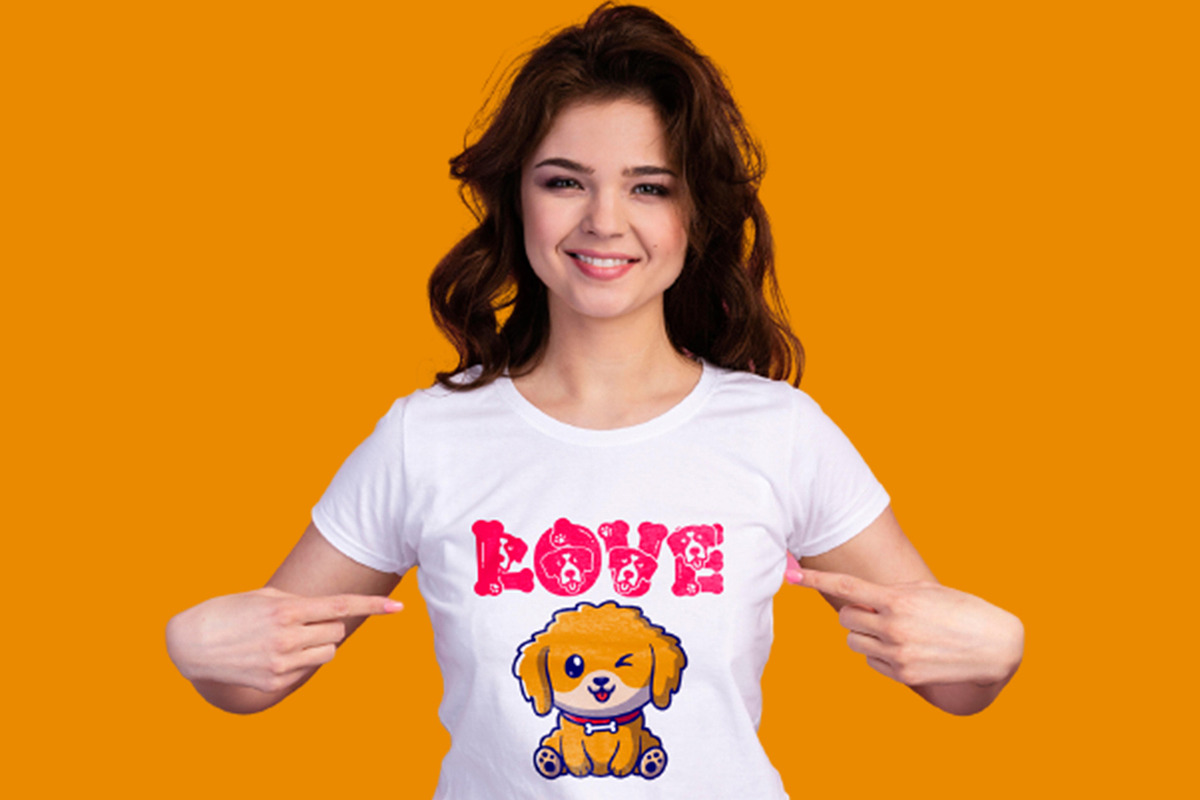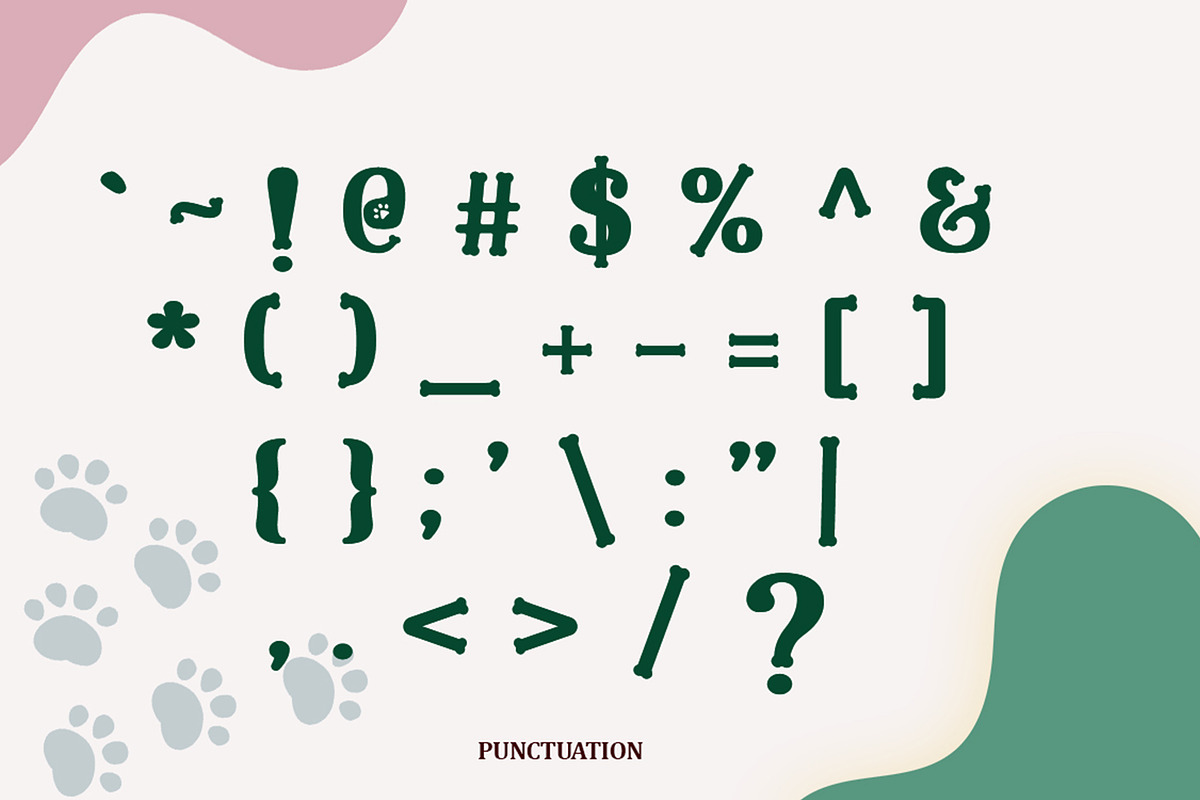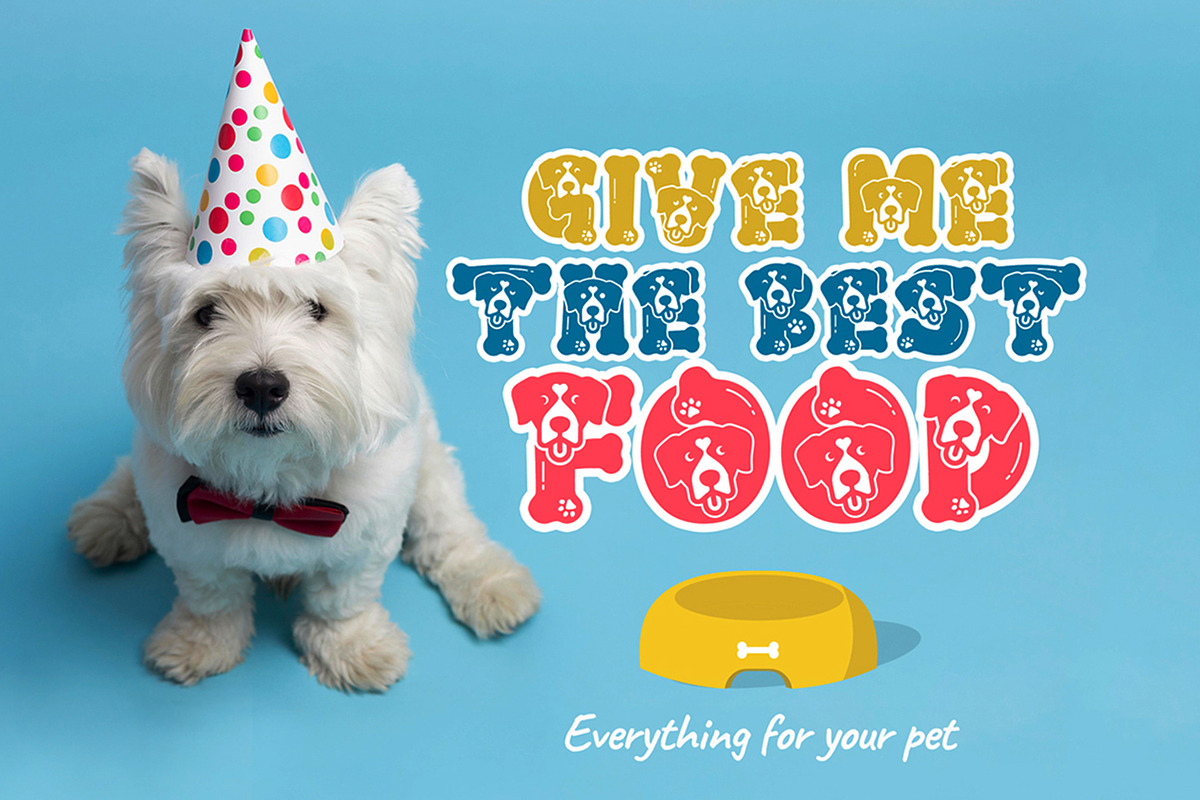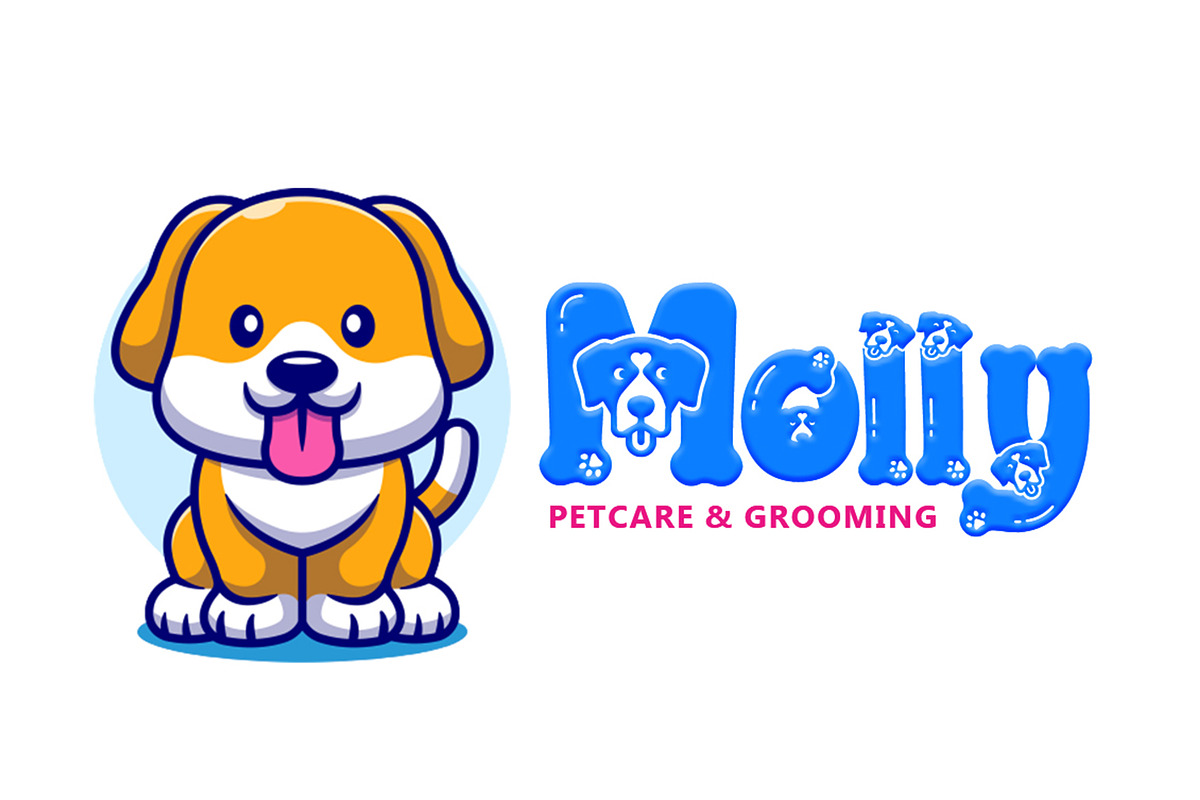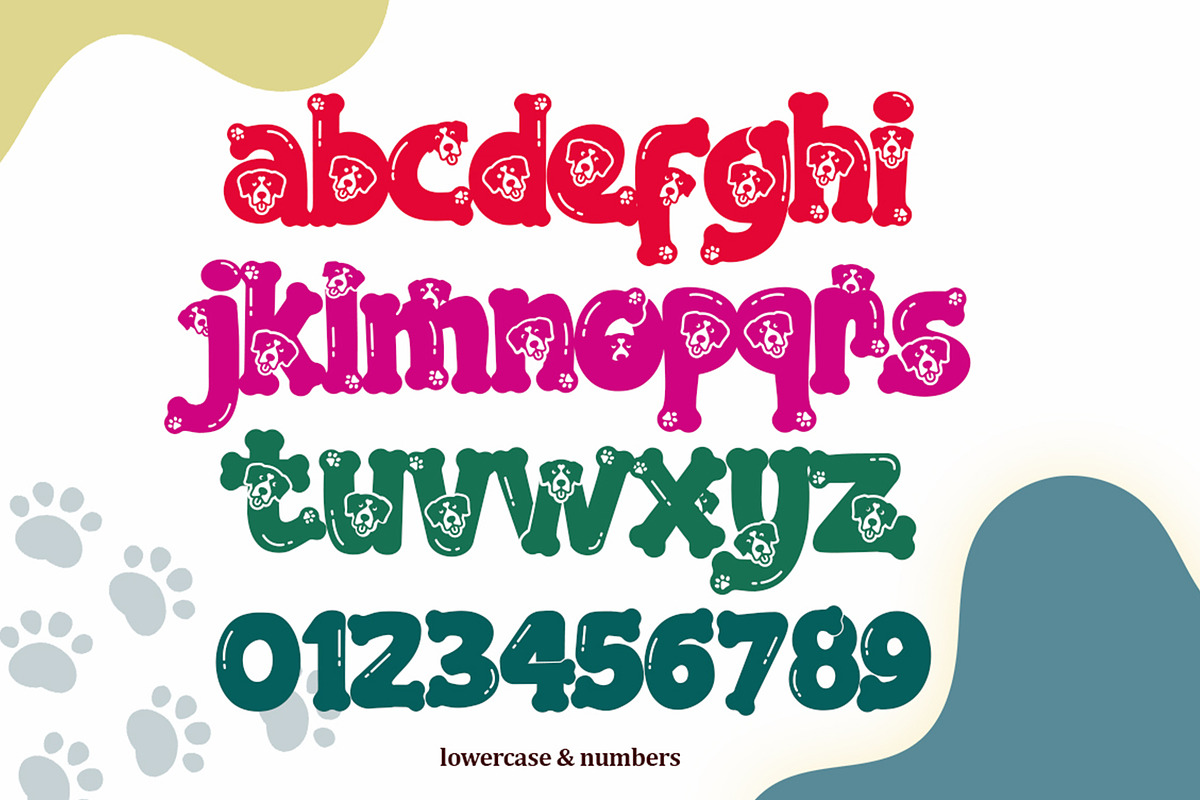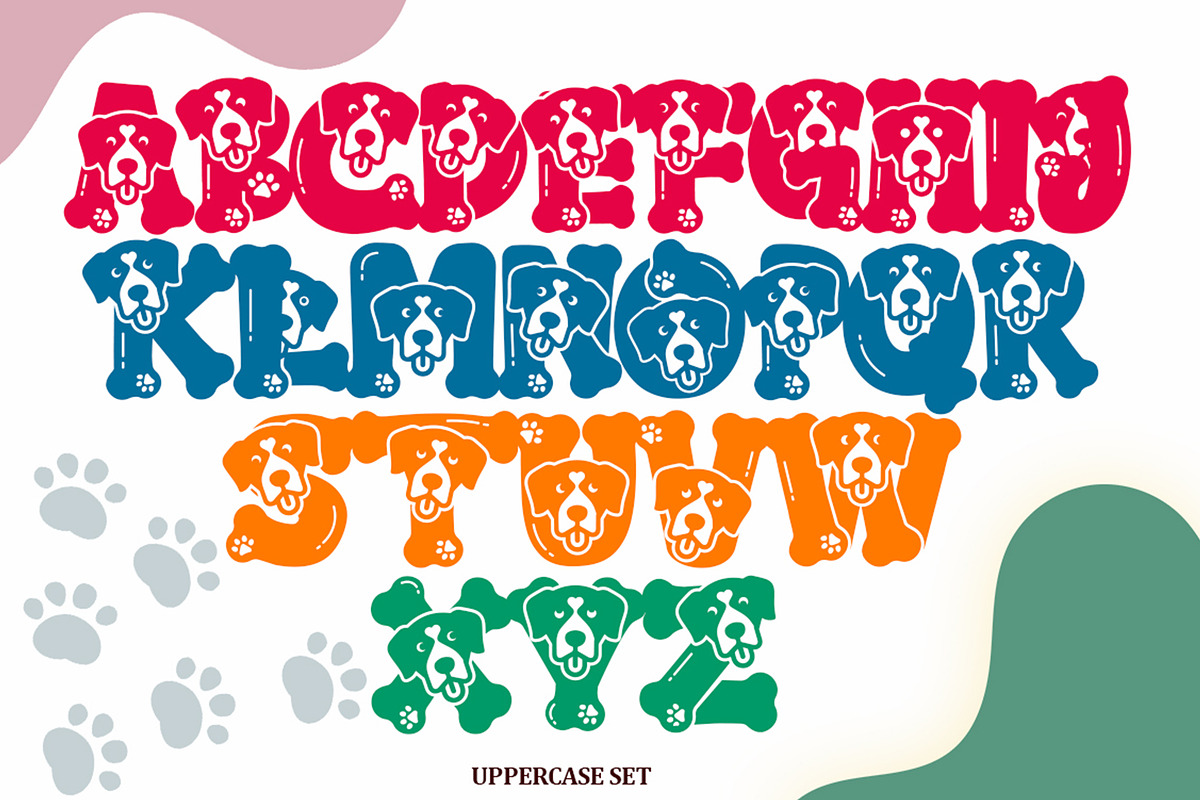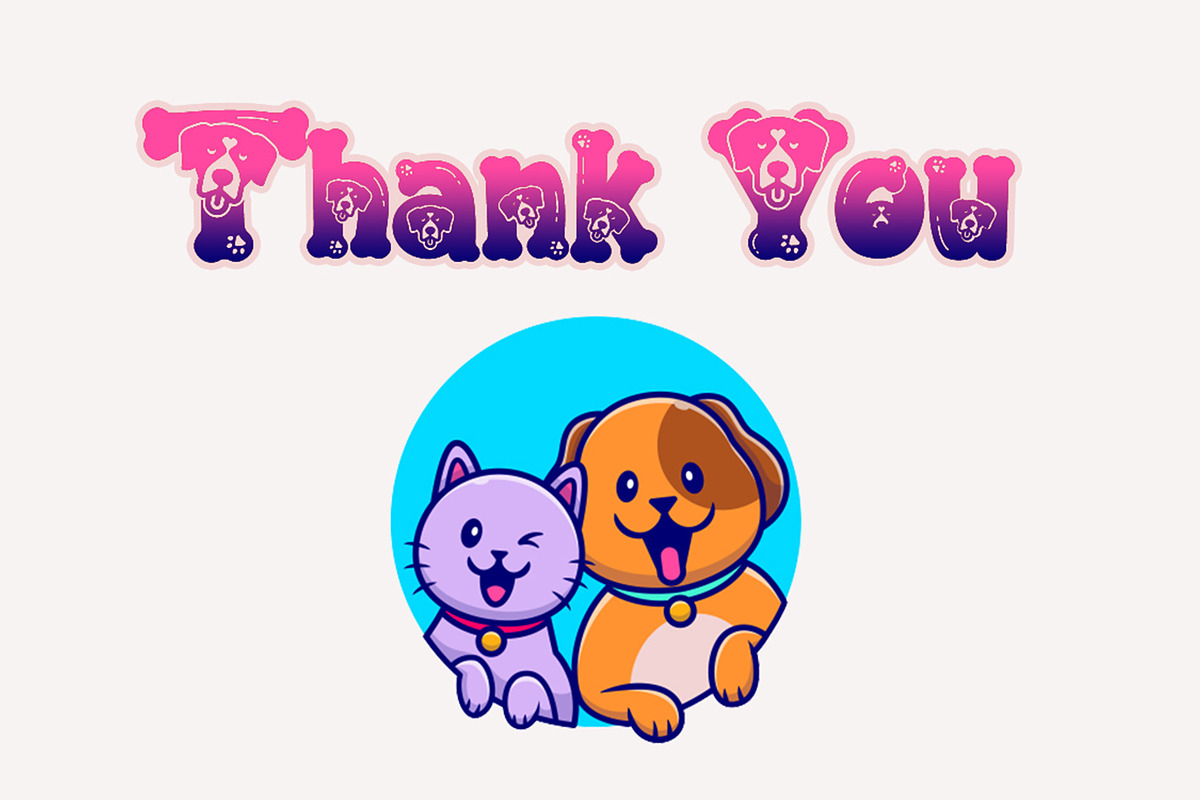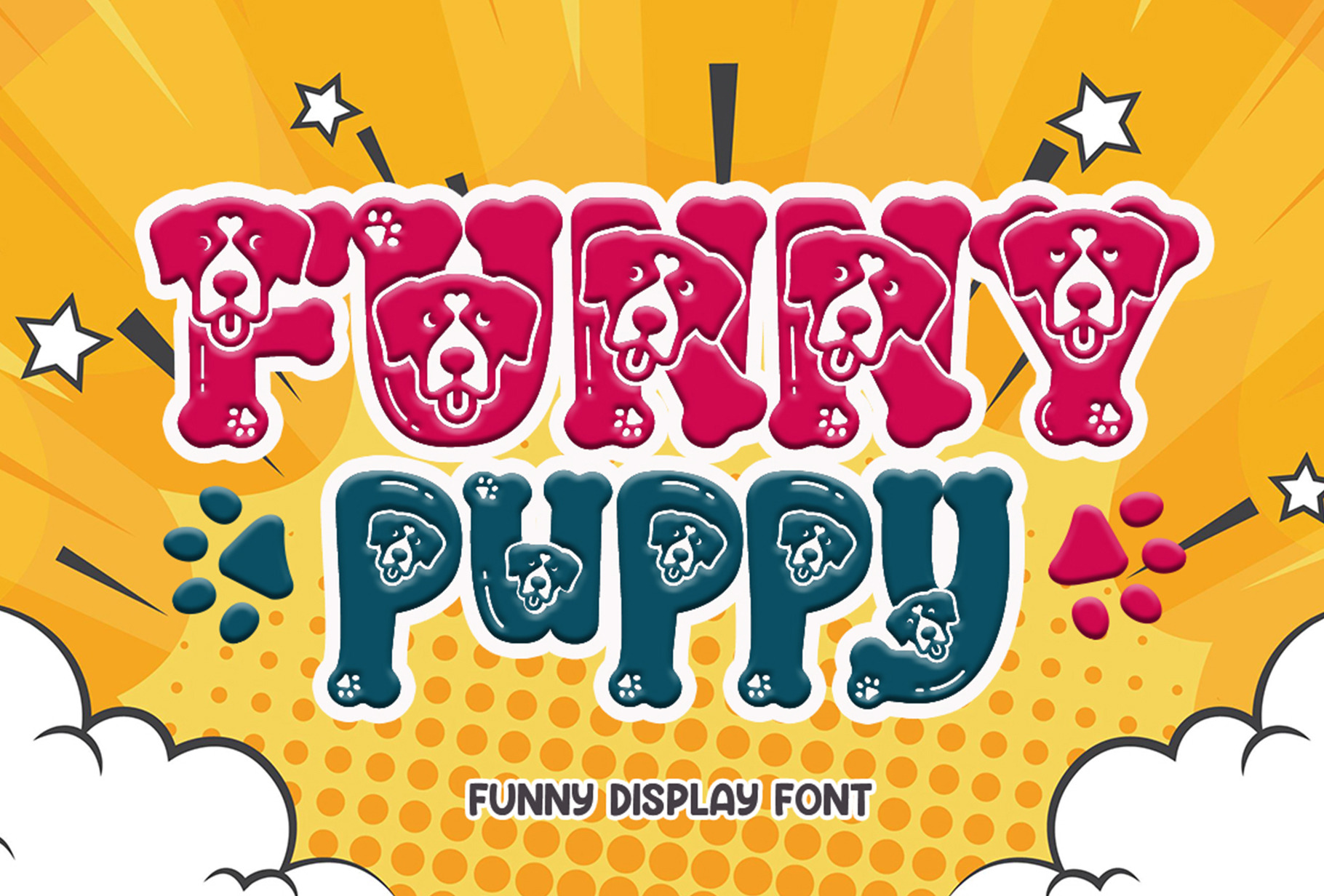
Funny Puppy | Funny Display Font
Funny Puppy is a brilliant, fun, and cute display font. It is typeface inspired by puppies, and defined by its designed for optimal legibility. An lowercase is unique. It is perfect for children-themed designs, especially when combined with bright colors. Whatever the topic, this font will be a wonderful asset to your font library, as it has the potential to enhance any creation.
FEATURES Cute Typeface, Numbers & Punctuation.